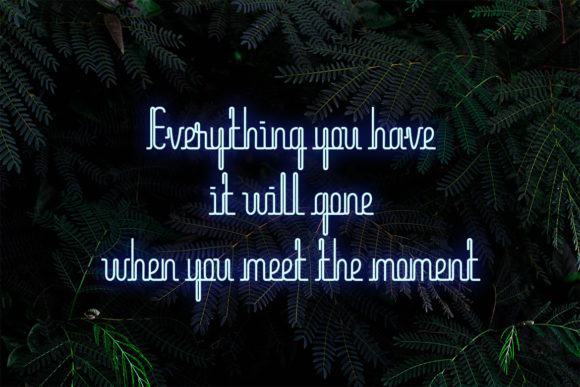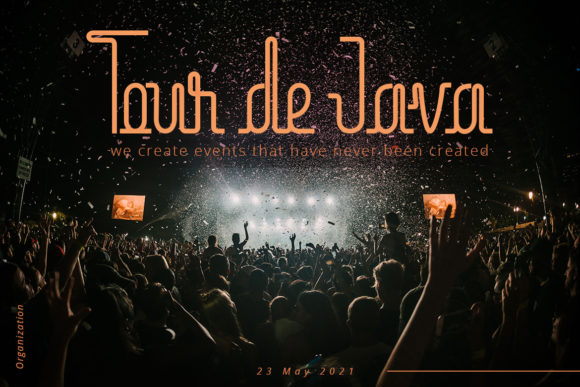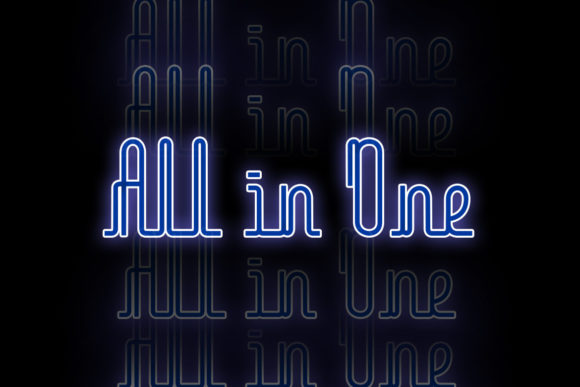
Introduction to Neonisans Font
Have you ever stared at a blank canvas, waiting for inspiration to strike? That’s exactly what happened to me when I stumbled upon the Neonisans Font. Its sleek, modern design instantly caught my attention, and I knew I had to learn more about this incredible design resource. The Neonisans Font is a high-quality display font that’s perfect for any creative project, from digital art to graphic design.
With its transparent background and futuristic vibe, this font is an asset to any designer’s library. Whether you’re working on a free download or a high-end commercial project, the Neonisans Font has the potential to elevate your creation and take it to the next level.
In this article, we’ll dive into the world of the Neonisans Font and explore what makes it a valuable addition to any designer’s toolkit.
Key Features of Neonisans Font
- Unique, hand-drawn design ideal for creative projects requiring a touch of personality and flair.
- High-quality design resource featuring a transparent background, allowing for seamless integration into any project.
- Resolution of 300 DPI ensures crisp and clear text, even when scaled up or used in high-resolution applications.
- Perfect for designers looking for a distinctive, eye-catching font to elevate their creative project and leave a lasting impression.
- Neonisans Font is a versatile design tool suitable for a wide range of creative projects, from digital art to print materials.
Honest Review: Neonisans Font
I recently stumbled upon the Neonisans Font and I’m excited to share my thoughts on this design resource. With its unique blend of futuristic and neon elements, this font is perfect for creative projects that require a touch of edginess.
- ✨ High quality and detailed design that truly stands out.
- ✨ Easy to read and use in various contexts, from headings to body text.
- ✨ Great for designers looking to add a touch of neon to their work without the hassle of creating it from scratch.
One limitation I noticed is the lack of a transparent background option, which might be a problem for designers who want to use the font on a transparent background.
Tips for Getting the Most Out of it
Use the Neonisans Font to create eye-catching headings and titles for your creative project. Experiment with different font sizes and colors to add visual interest. You can also use the font in combination with other design elements to create a high-quality design resource.
The Neonisans Font is ideal for use in creative projects such as logos, brochures, posters, and infographics. You can also use the font to create a free download template for social media graphics or presentations.